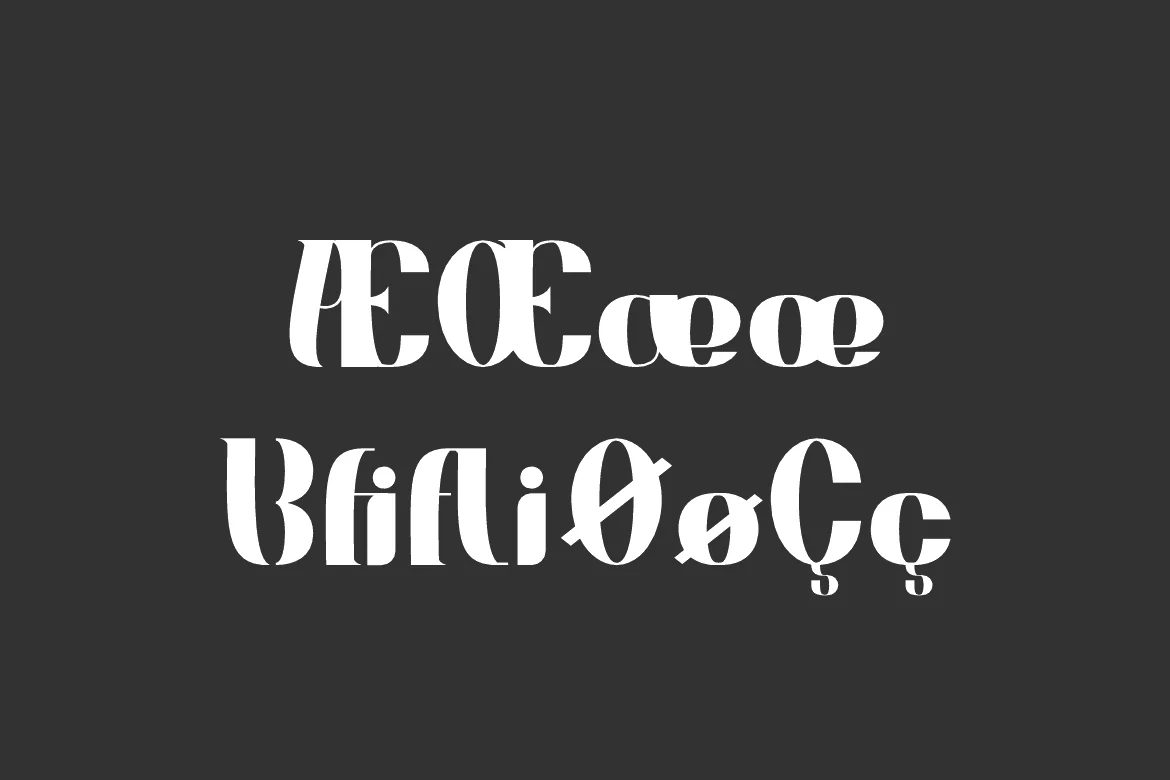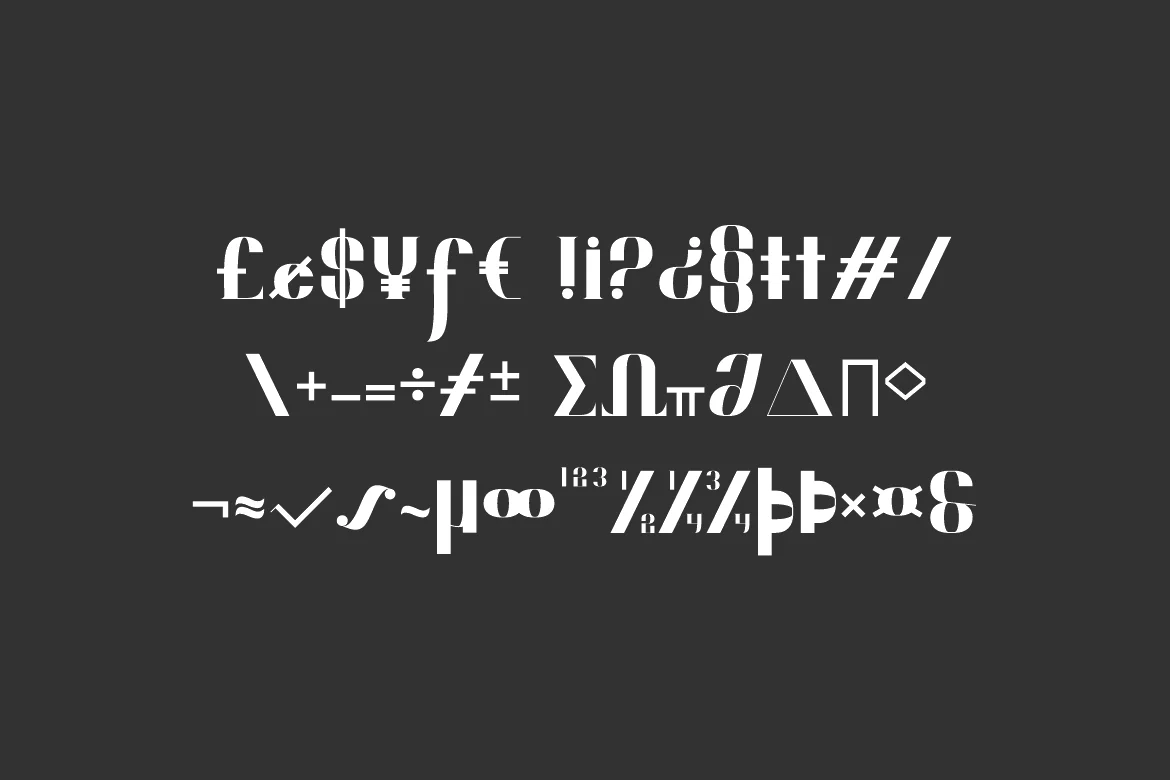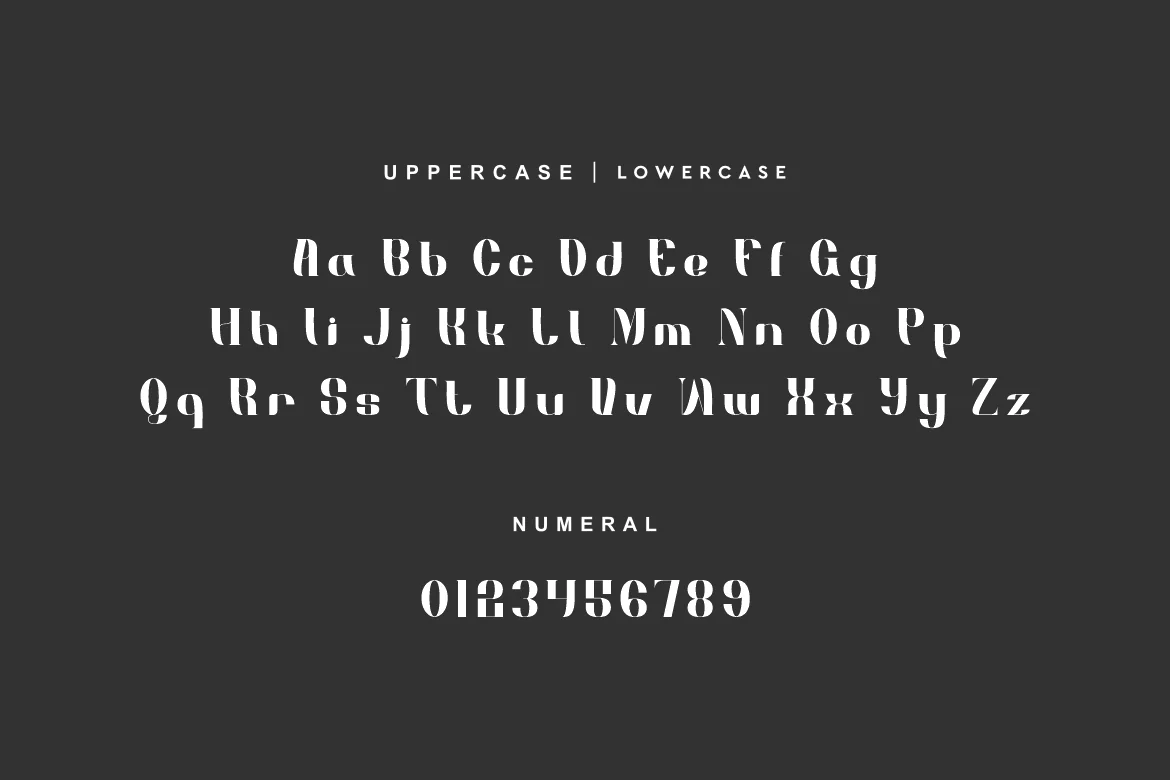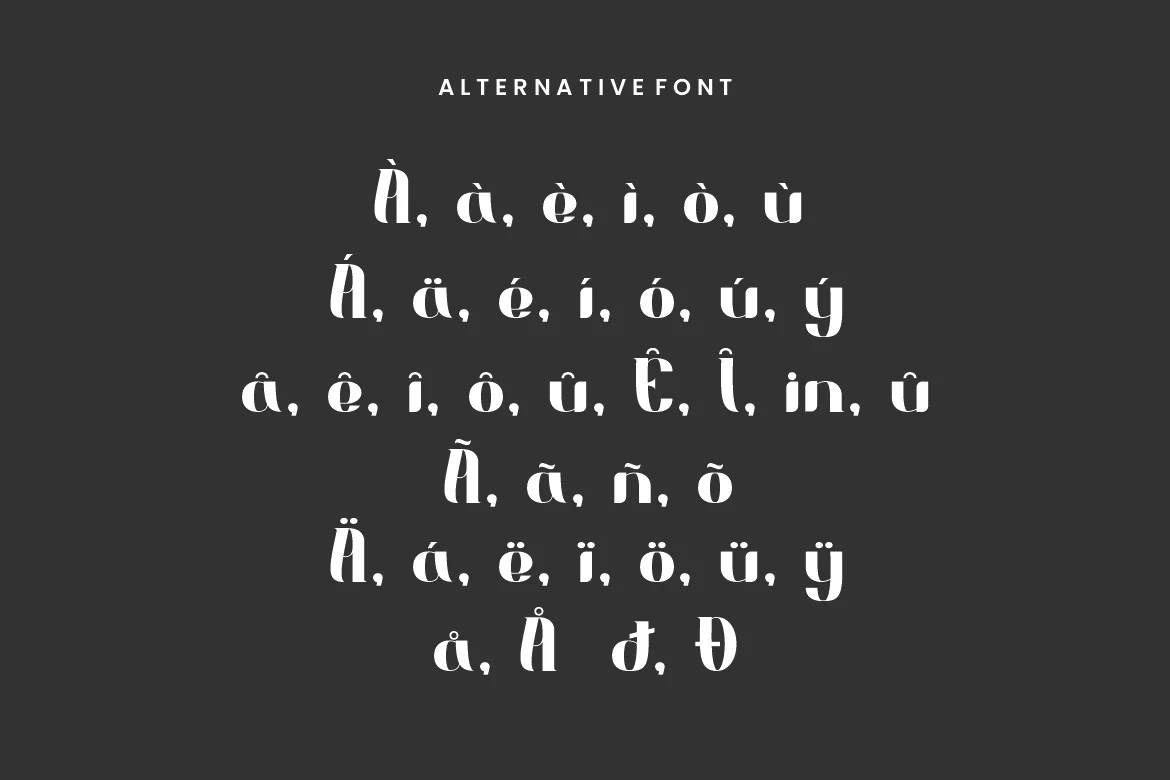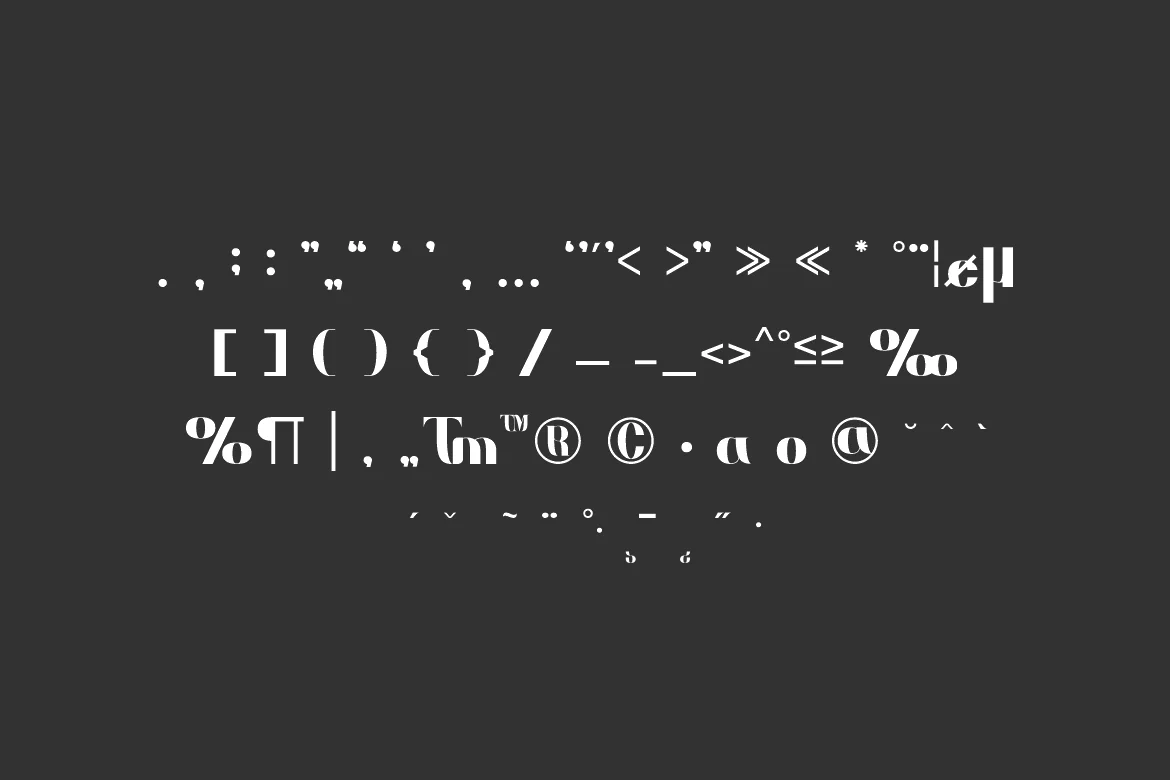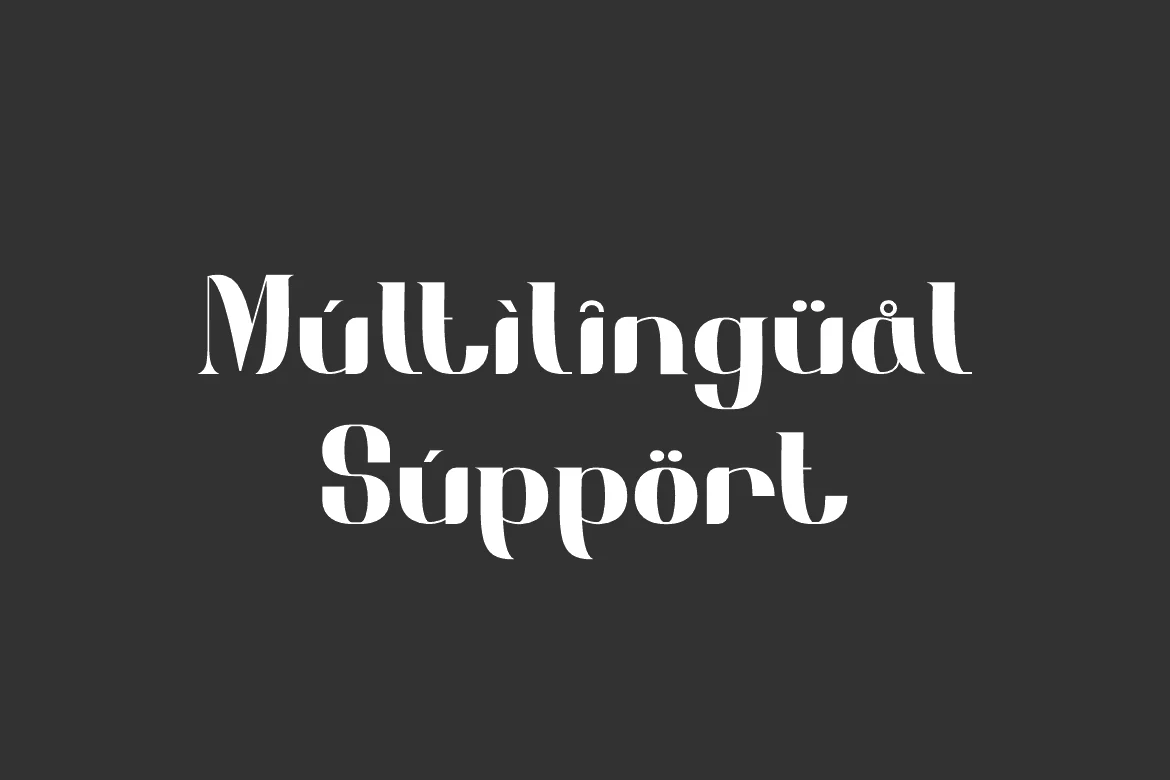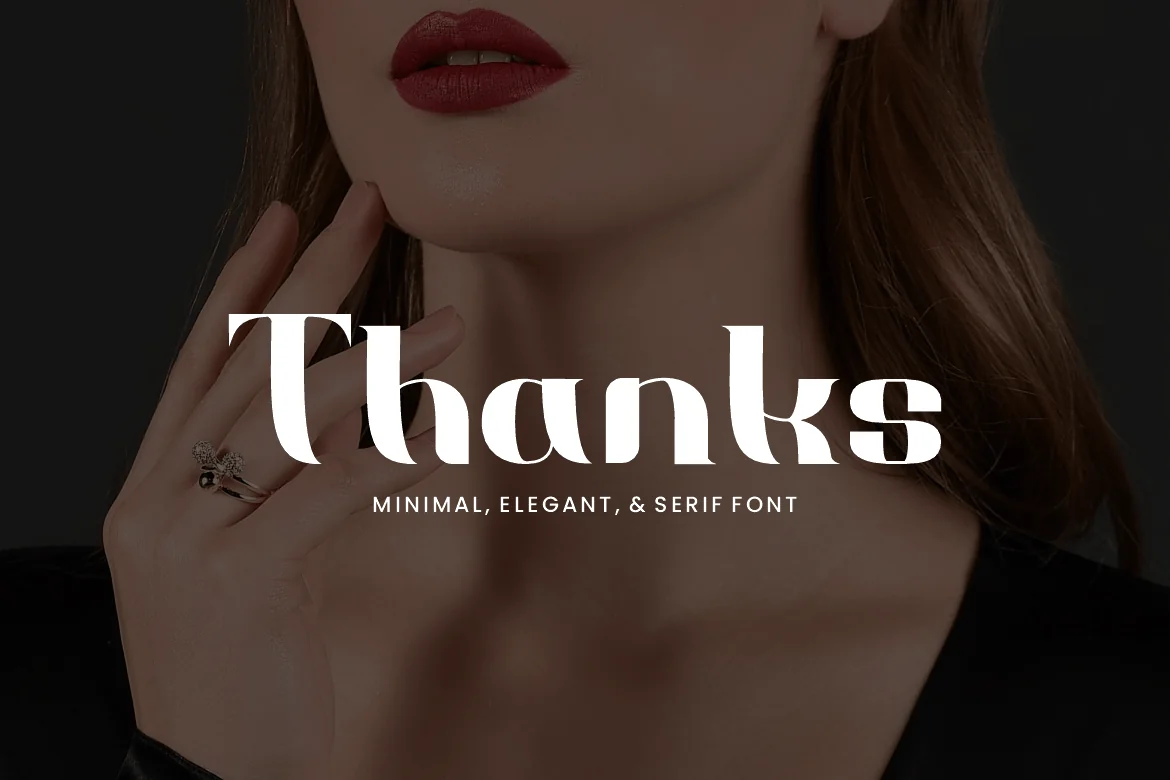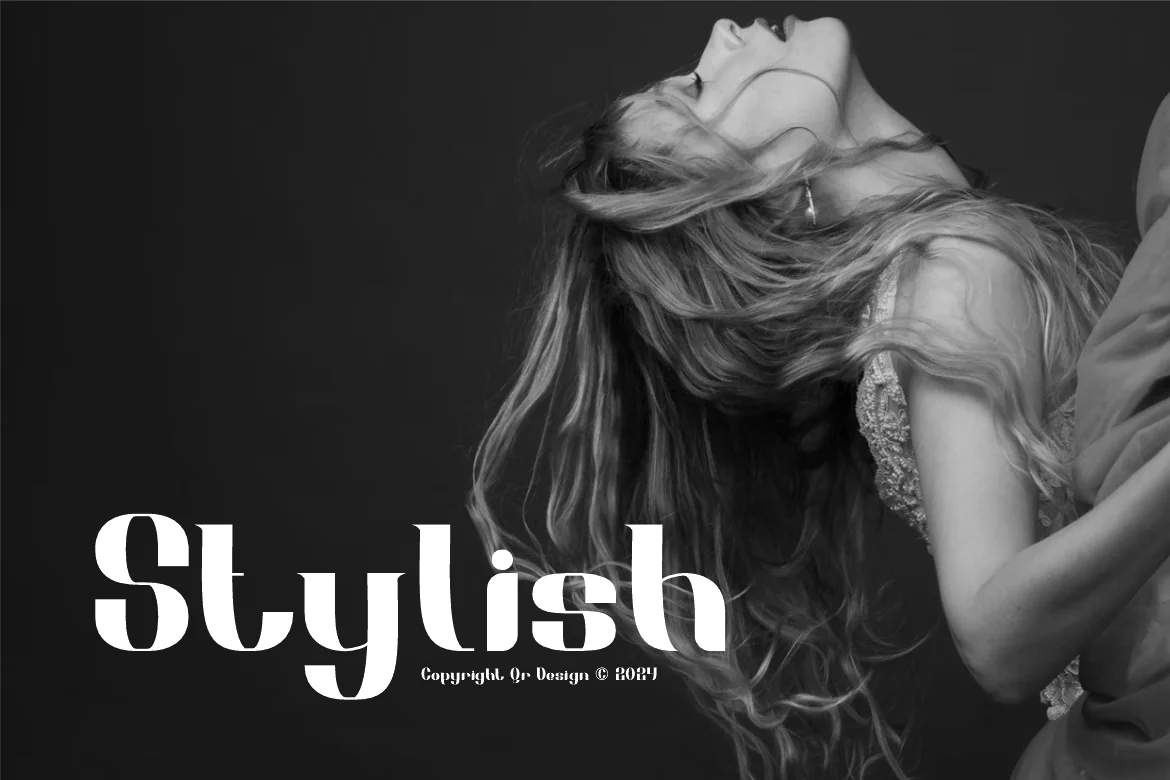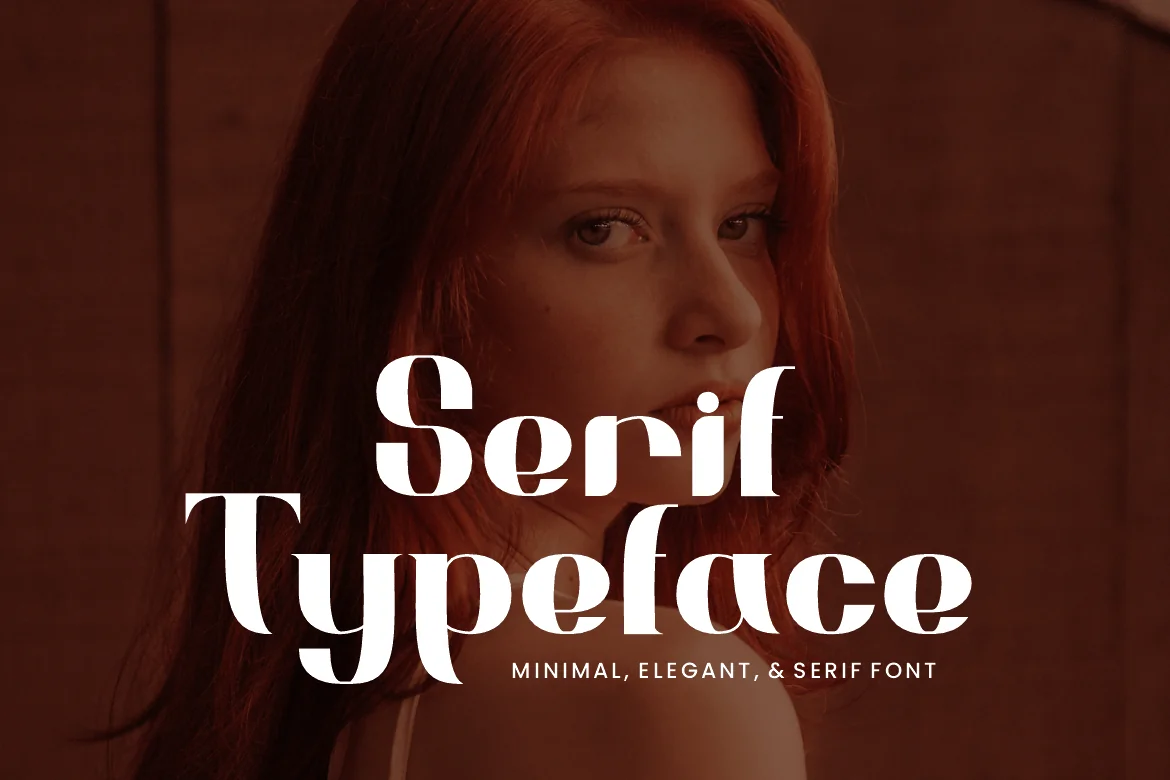
Zellany Nillofan – Minimal & Elegant Font
Zellany Nillofan Font is a serif and minimal logo font.
The font is suitable for any branding project like stylish, poster, logo, sport, and many more.
Outstanding in a wide range of contexts.
Main Features
- Ligatures & Alternate
- Numeral & Punctuations
- Extended Character Set